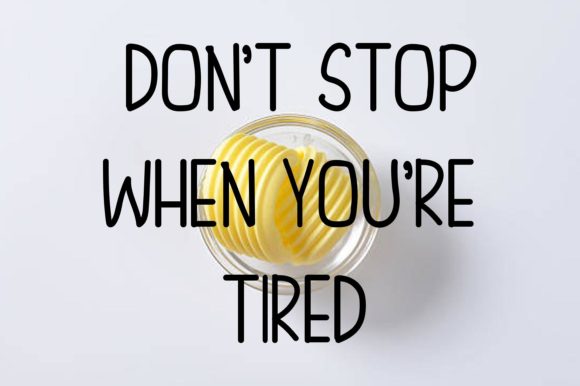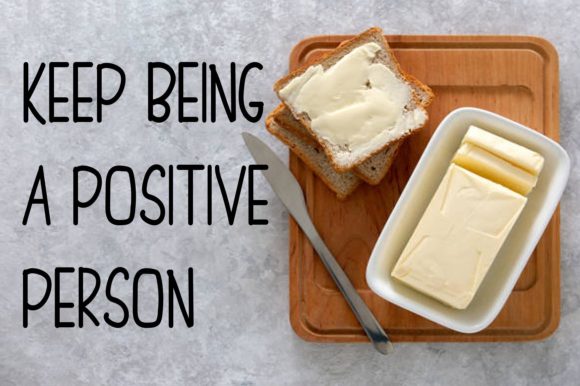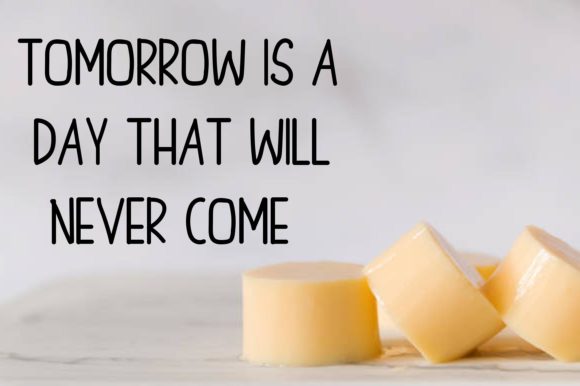
Introduction to Boiling Butter Font
Boiling Butter is a cute and casual handwritten font that will look outstanding in any context.
Whether you’re looking for fonts for Instagram or calligraphy scripts for DIY projects, this font will turn any creative idea into a true piece of art Boiling Butter can be used for logos, headings, t-shirts, letterhead, signage, labels, news, posters, badges, and so much more.
Key Features of Boiling Butter Font
Why Choose Boiling Butter Font?
Boiling Butter Font offers exceptional quality and versatility, making it a valuable addition to your design toolkit. Whether you’re creating for personal projects or commercial use, Boiling Butter Font delivers professional results.